Murray Taylor looks at the Ambrosia, Versal and Asian fonts, a method of carving handwriting and some interesting finds from car boot sales
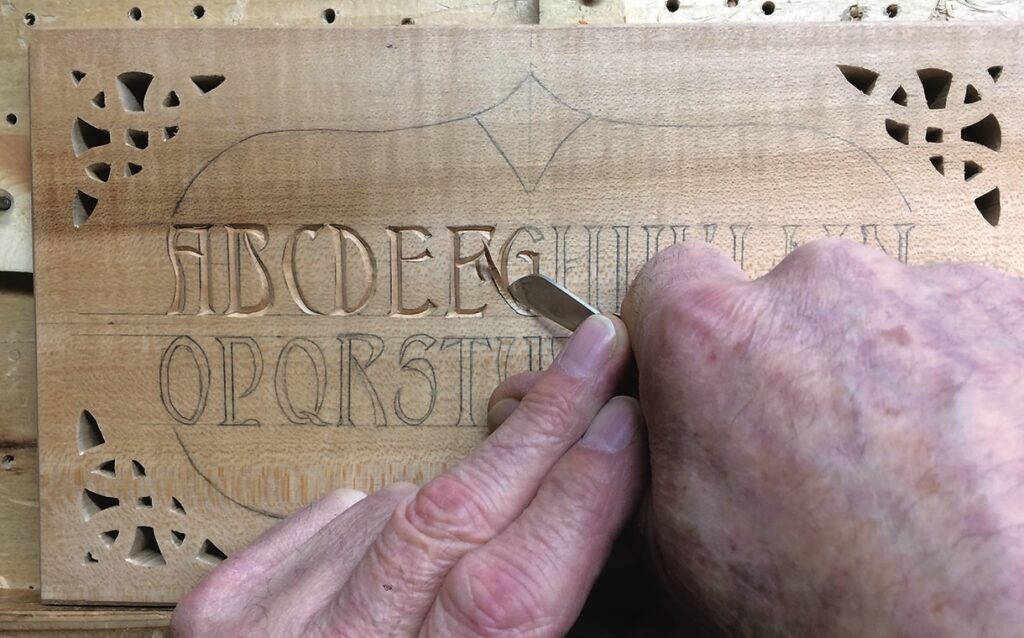
We are going to look the Ambrosia font, which can be found on many websites. This version, however, is one I have adapted from the master – I refer, of course, to Wayne Barton, who inspired me in my venture into chip carving. This font lends itself to chip carving or to larger letters in harder woods using conventional gouges and chisels.
The Ambrosia font
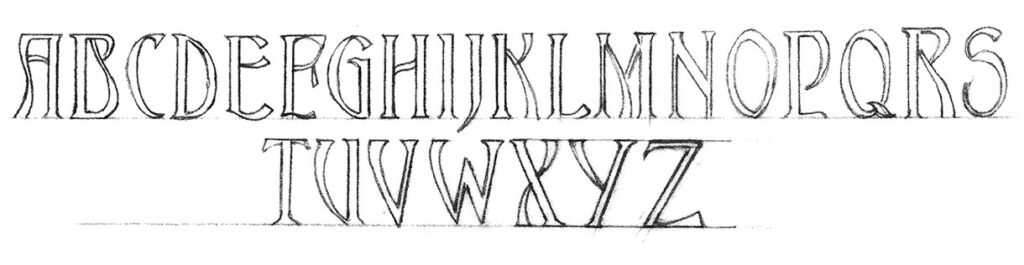
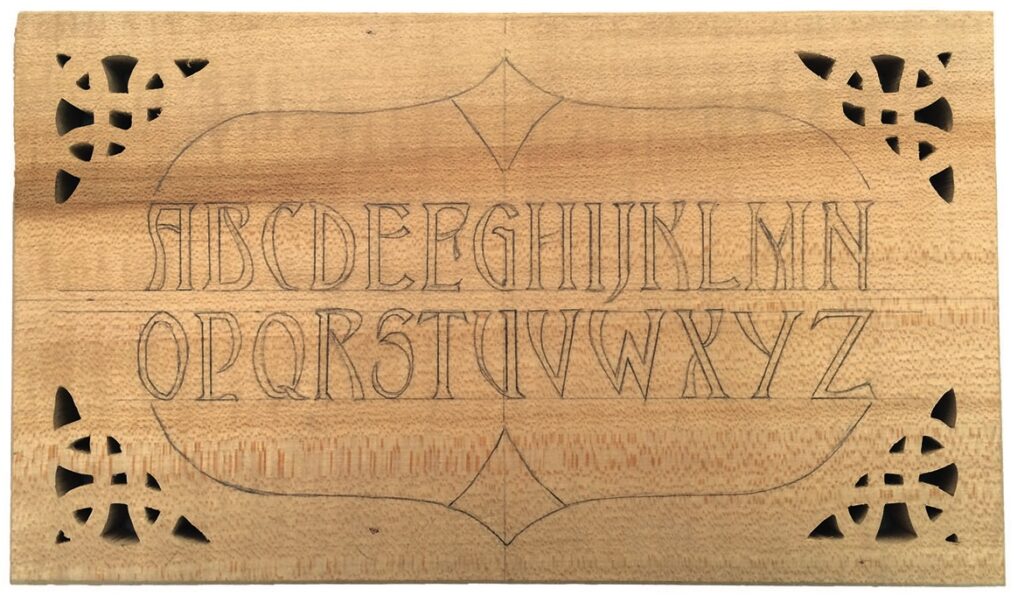
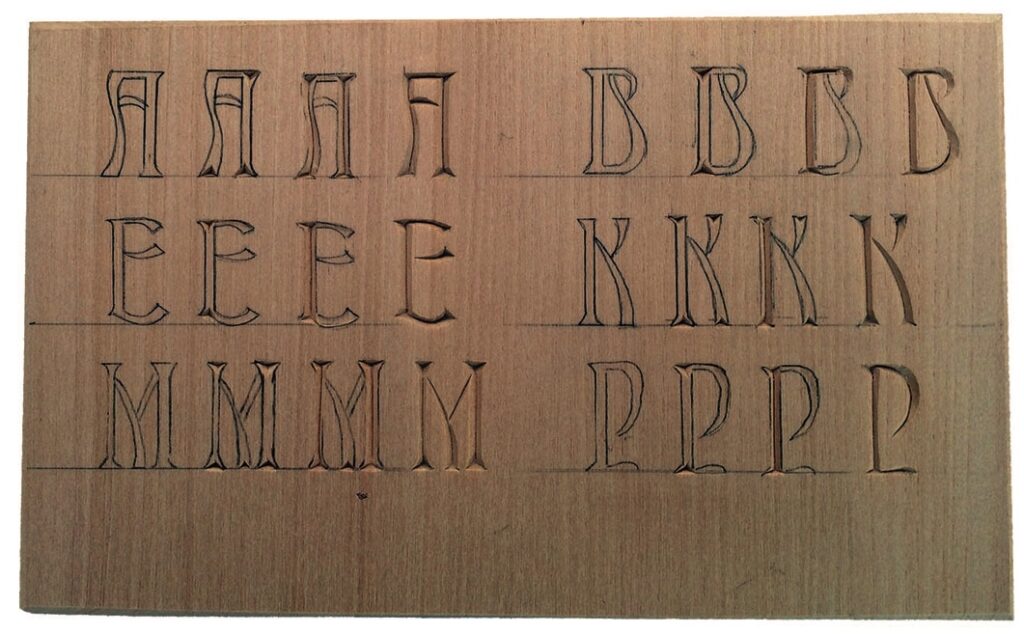
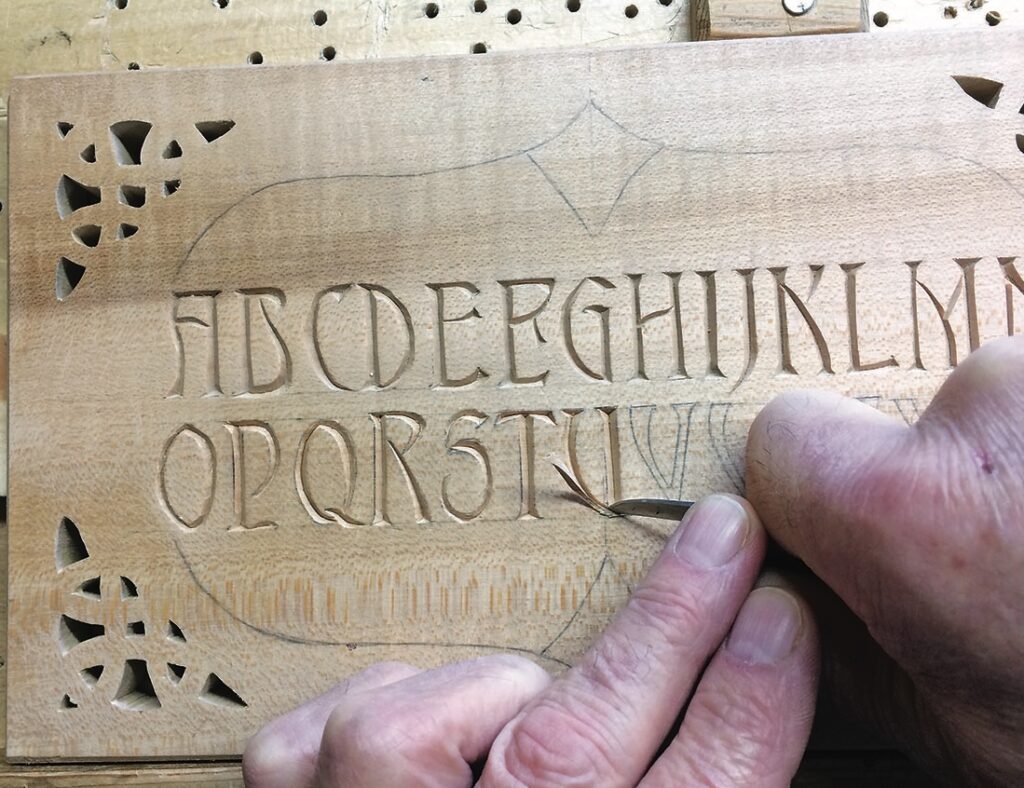
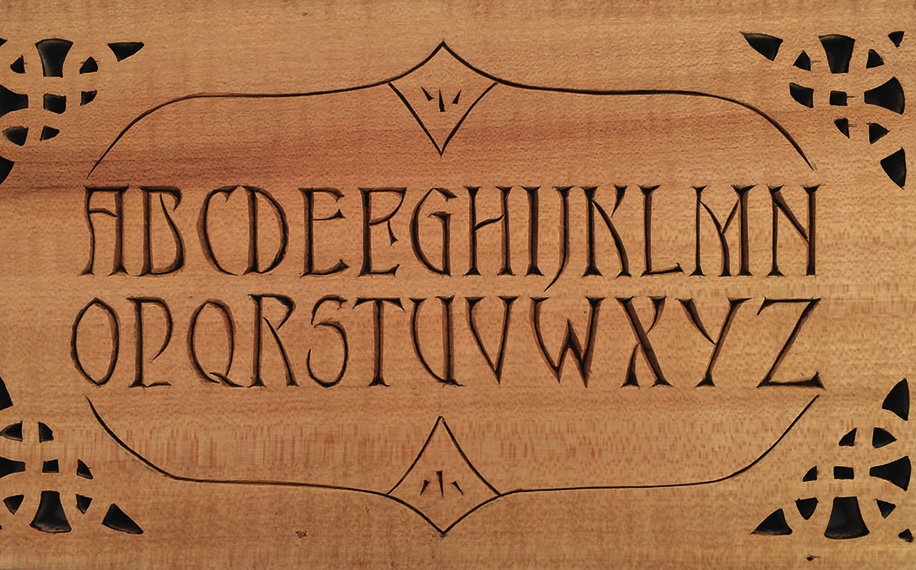
Ambrosia is an adaptable font
Carving the Ambrosia font should not cause you any problems as the letters are mostly formed from connected chips. I have selected a few letters to show you the development of carving them.Â
This font lends itself to many uses. It is very decorative and is especially useful when you have limited space as the letters can be drawn quite close together without unduly distorting the words or distracting from the artistic appeal. In the project idea you will see how the ‘D’ and the ‘A’ sit so well together in the days of the week.
This now leads me to the project, which as always is meant to give you food for thought – you don’t have to adhere rigidly to my design. The exercise here is to produce a perpetual calendar using a very simple construction method. It consists of a series of different-size plaques and a holding box.
You could copy the design of the box I have made or design one of your own. There are few rules, but you do need to make four small plaques, three middle sized and two large ones. For this exercise I have used 6mm-thick material for the plaques which measure as follows: four off 50 x 70mm, three off 100 x 100mm and two off 100 x 130mm.
In order to be able to form any number from 1 to 31 you will need to duplicate some numbers and blanks as shown in the diagram. The days of the week go on to each end of longer plaques and on both sides, while the months are on the middle ones. The box is a simple pinned and glued construction, made to give about a 1mm gap all round the plaques to allow for easy removal. You could, of course, make a much more technical construction and alter the dimensions to suit your requirements, but the general idea should be fairly obvious and the example I have made can be freestanding or hanging.
CARVER’S NOTE:
Draw out the days and months on tracing paper and copy on to the plaques using graphite paper. Remember to work from a centreline.
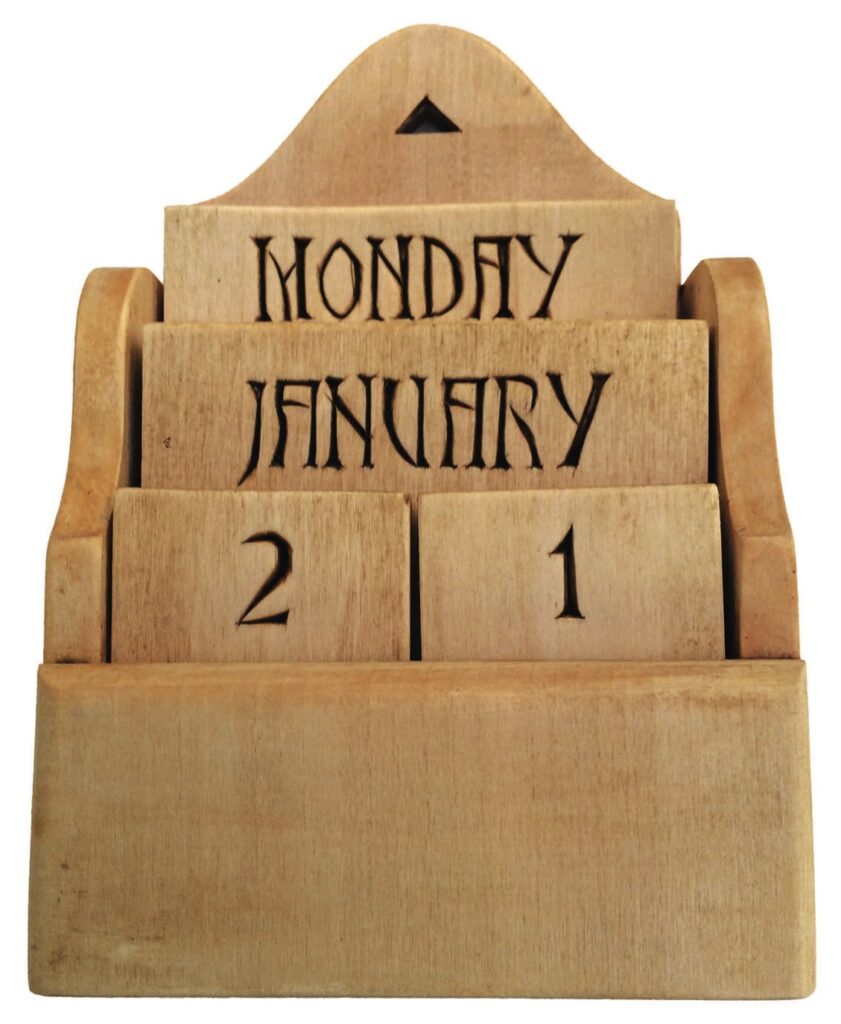
The Versal font
The next font I want to look at is called Versal. It is a variation of the standard Roman font in which the straight-sided letters become concave, which makes it very decorative and, in my opinion, much easier to carve. There is a further advantage in that the ‘O’ and ‘Q’, which seem to cause problems in the standard font, are formed by joining two crescent-shaped chips. You can play around with the serifs of this font and make them quite a bit over-sized, which gives a pleasing result.
The letters in this font fall into natural categories, the ones with straight and curved elements such as ‘B’, ‘D’, ‘G’, ‘P’, ‘R’ and ‘U’, the straight line letters, and those with all curves, ‘O’, ‘Q’ and ‘S’. The ‘D’, for example, can be carved as the upright section with the curved section being treated as a simple two-cut crescent chip barley touching the upright, or it can be run on to the upright and form a more professional-looking letter.
CARVER’S NOTE:
It can sometimes be difficult to copy very small letters, so draw out the required words at a much larger scale, then reduce them in a photocopier.Â
Looking to the East
The next font is a more oriental style, which I find very useful for objects of a Japanese nature and for inscriptions on martial arts trophies. It consists of very simple three-cut chips and can be adapted and varied according to needs.
Unlike more formal fonts, which need to be copied accurately in order not to lose the form, this font can be modified without losing the integrity of the letters, which generally makes it much easier and quicker to carve.
I made the Haiku Box to hold the tools and oils, powders etc. used in the cleaning of antique Japanese swords. I realise that the words of the haiku are a little confusing when translated, but their significance is not important here – I am showing it to illustrate the use of the font and the chip-carved Japanese motifs.
It is worth noting the use of the wood with a natural knot and the simple construction method I have employed in making the box. It consists of simple mortises on the front and back panels with extended tenons on the sides, all held together with simple pegs. The sides and lid of the box are made of lime. The construction of this box can be achieved with a scrollsaw or a hand held fret saw. You could use the idea for any carving design of your own and, of course, the box could contain anything you wish.